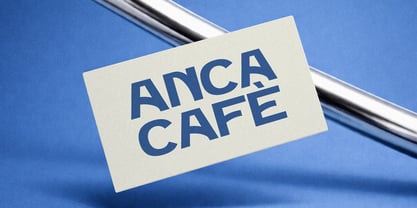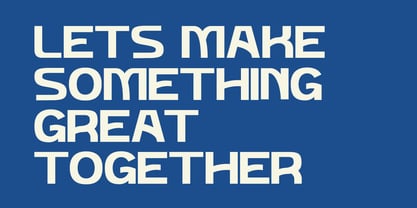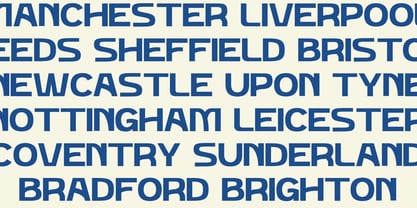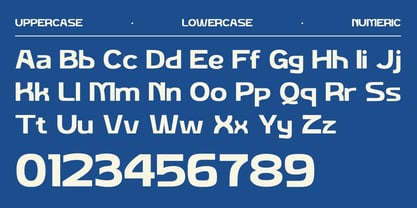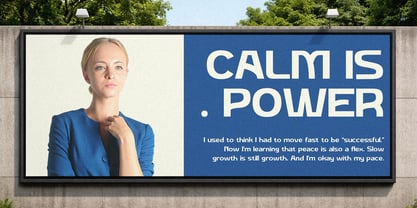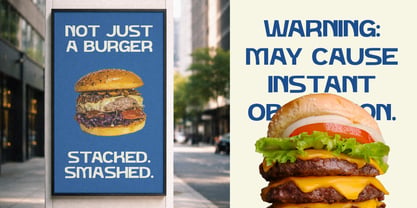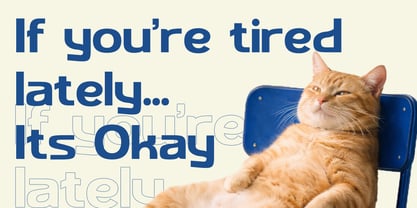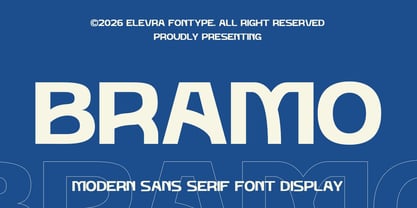
Bramo
by Elevra
The Bramo Font Family was designed by Wirandi Limansyah Zendrato and published by Elevra. Bramo contains 1 styles. More about this family
Bramo is a bold modern sans serif display font designed to deliver strong visual impact with a clean, contemporary feel. Featuring smooth curves, confident strokes, and subtly unique letter construction, Bramo creates a fresh typographic voice that feels both professional and expressive. This typeface is built for high readability at large sizes, making it ideal for headlines, brand identities, poster typography, social media graphics, and editorial covers. Its modern structure and geometric balance make Bramo highly versatile working great for minimal designs, premium brand visuals, and modern advertising layouts. Whether you’re creating a bold logo, a clean brand system, or statement typography for a campaign, Bramo provides the modern edge you need simple, strong, and distinctive.
Designers: Wirandi Limansyah Zendrato
Foundry: Elevra